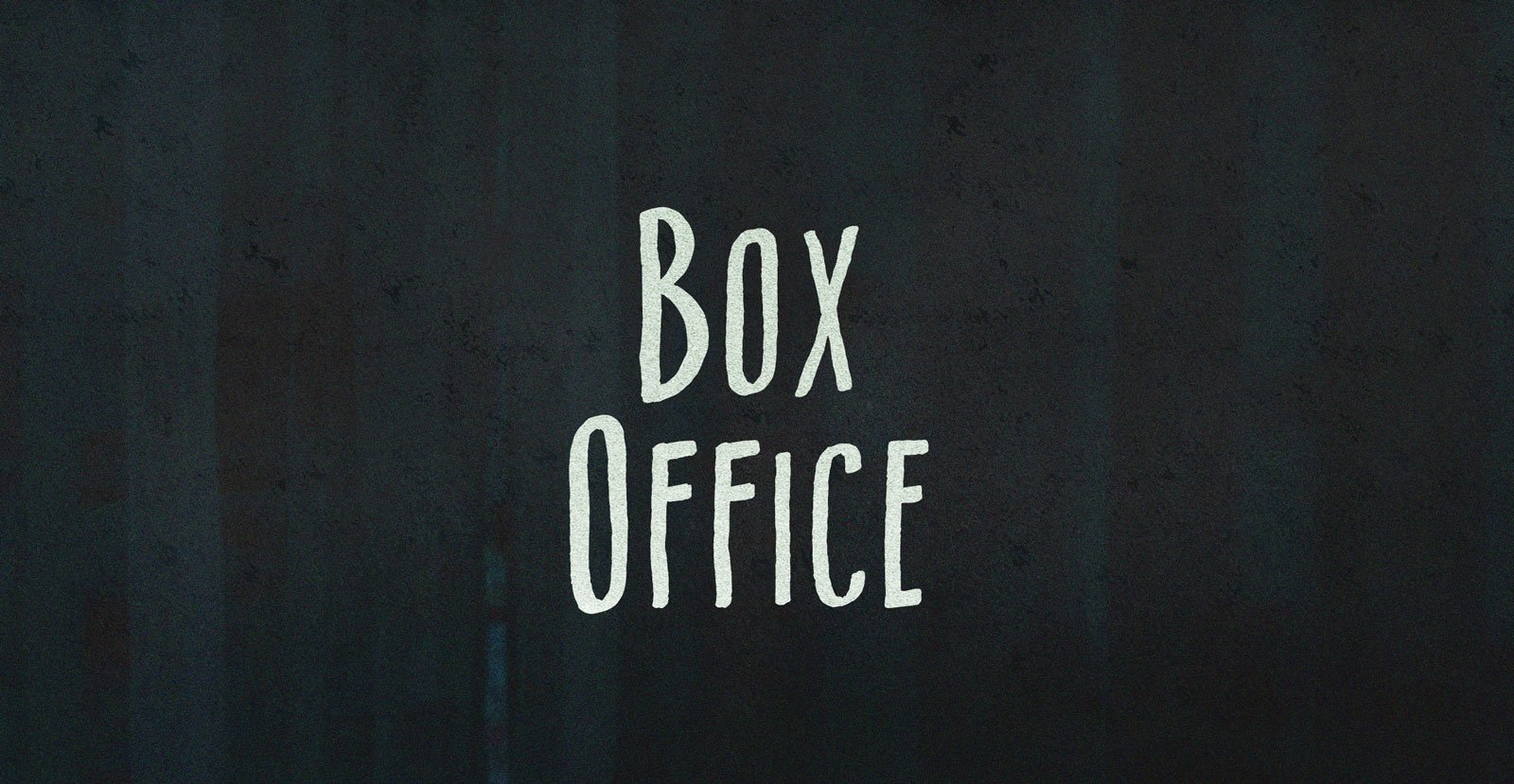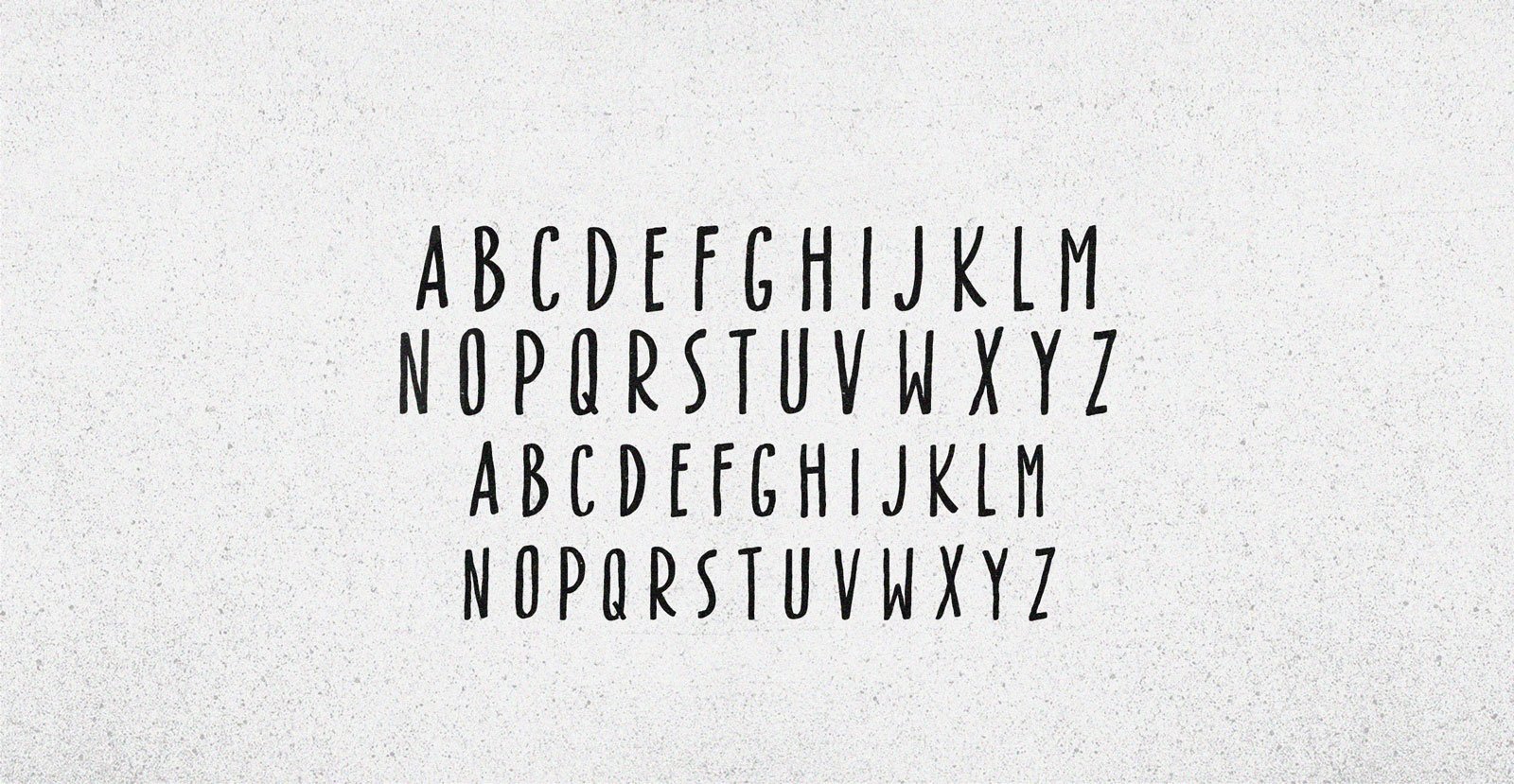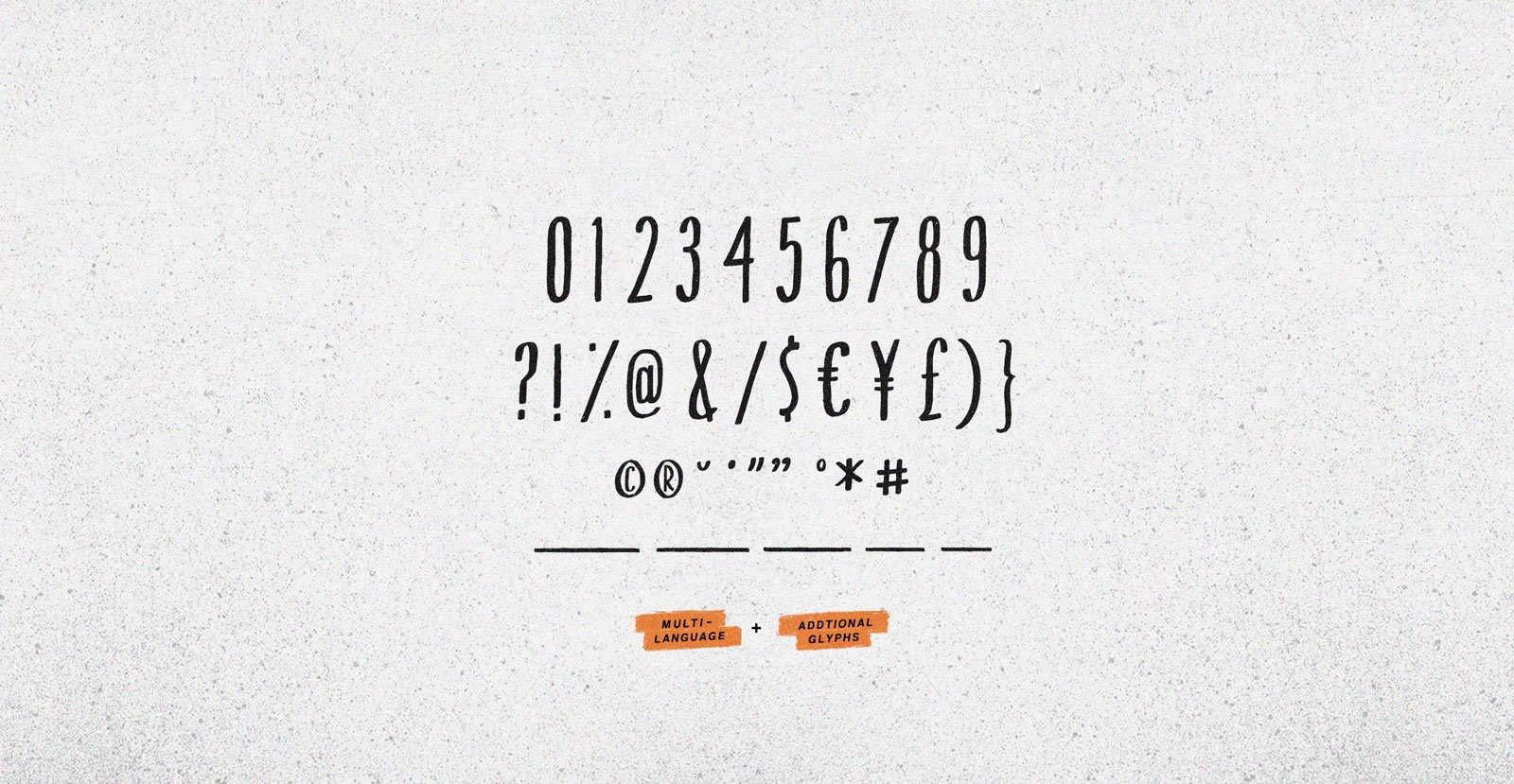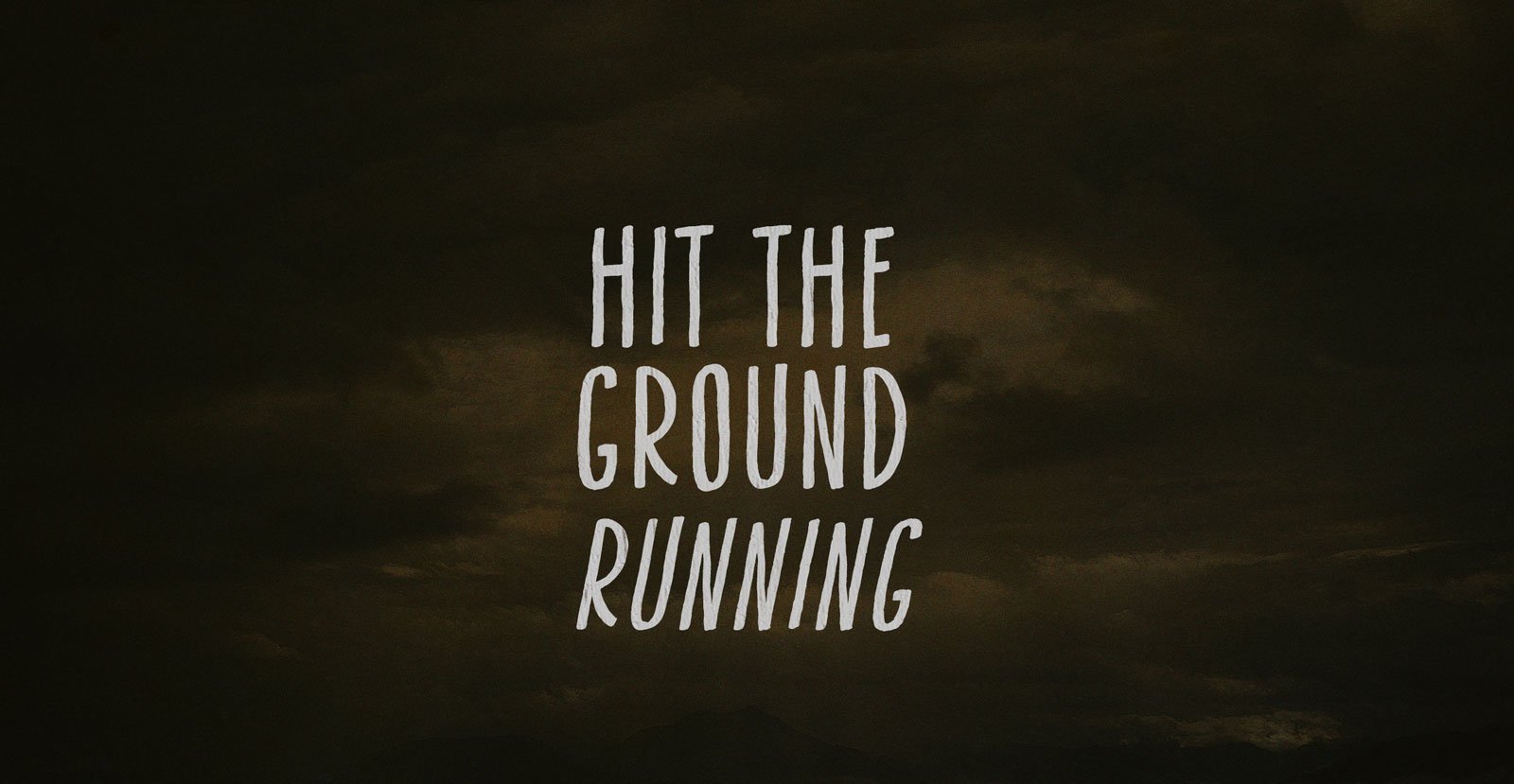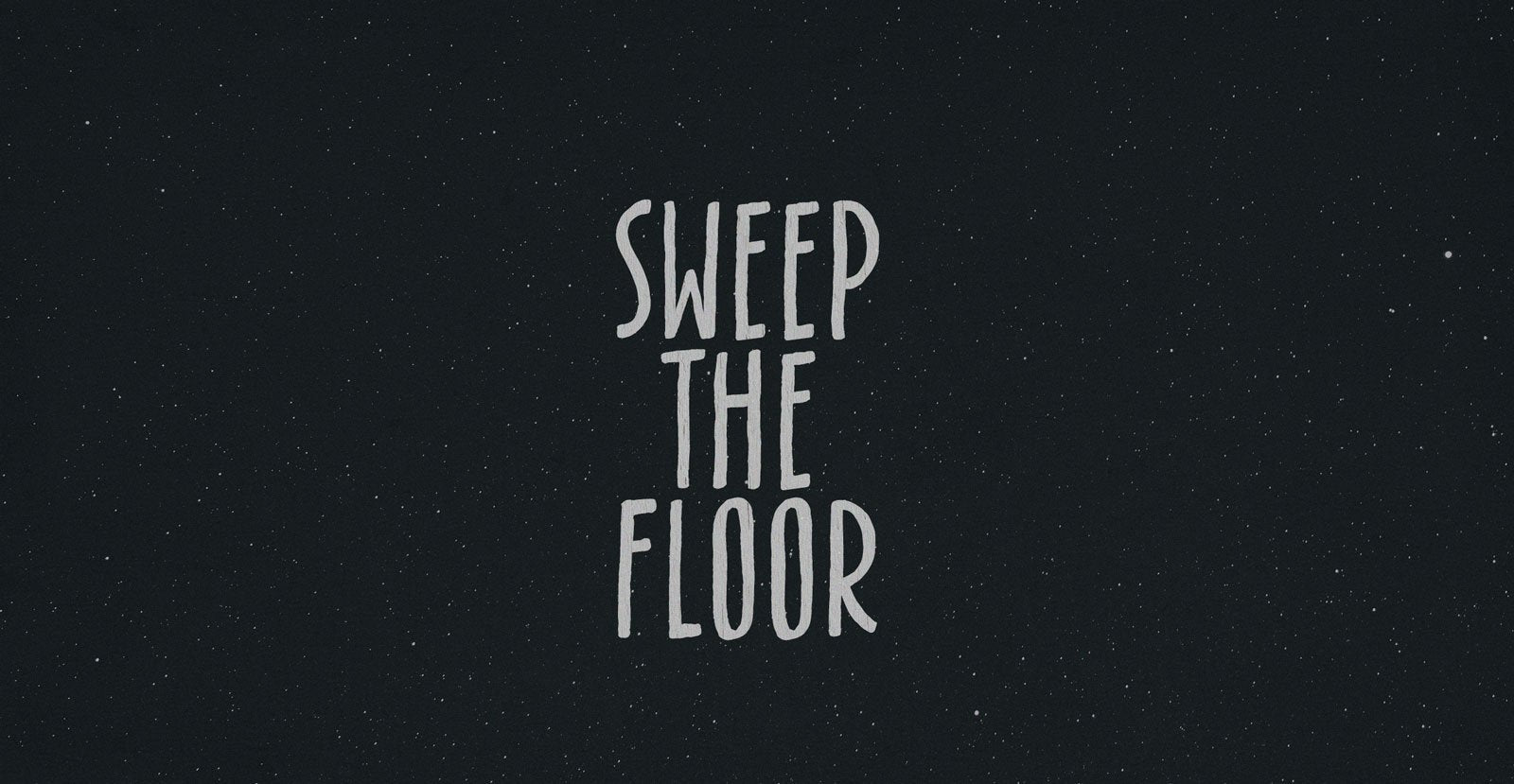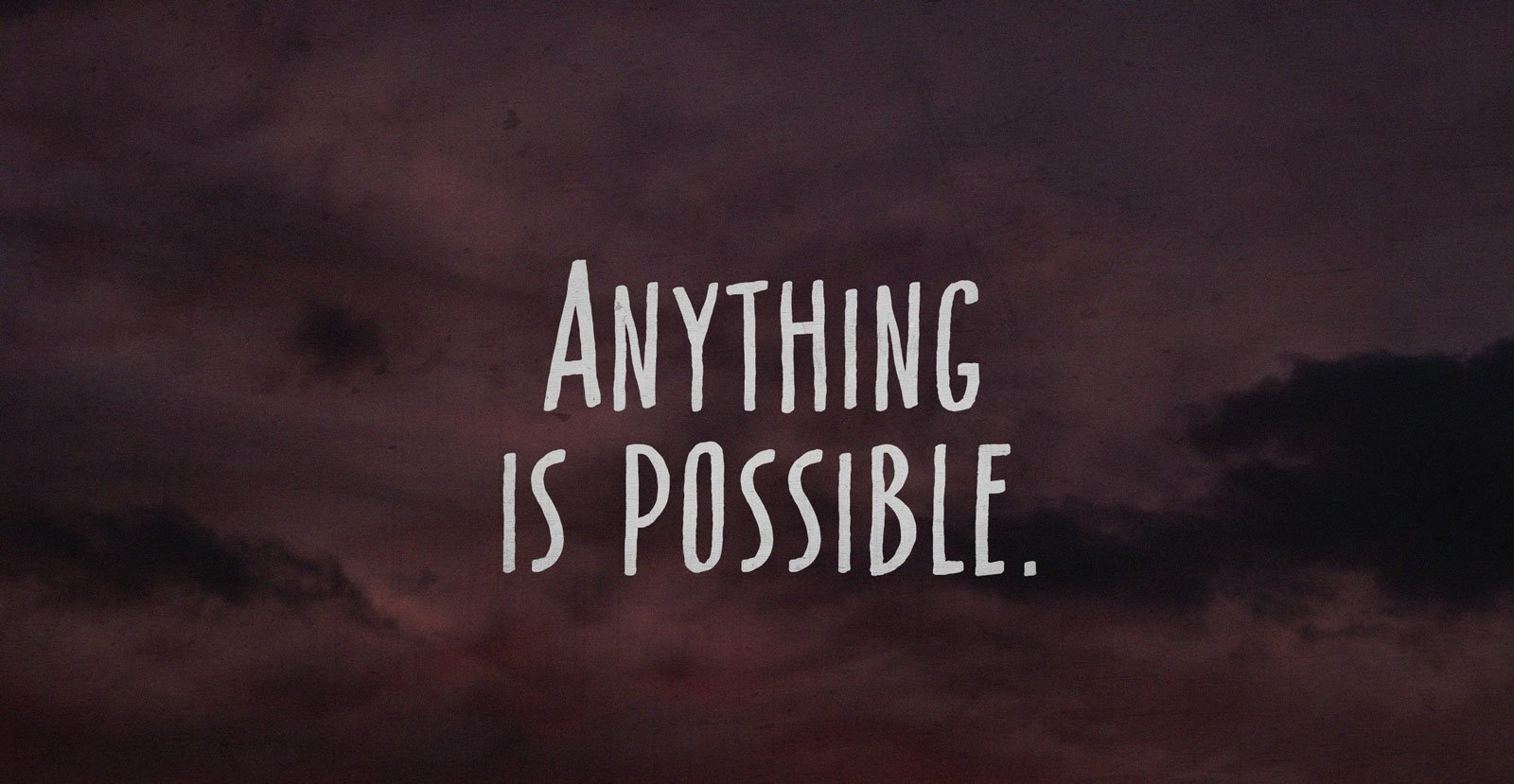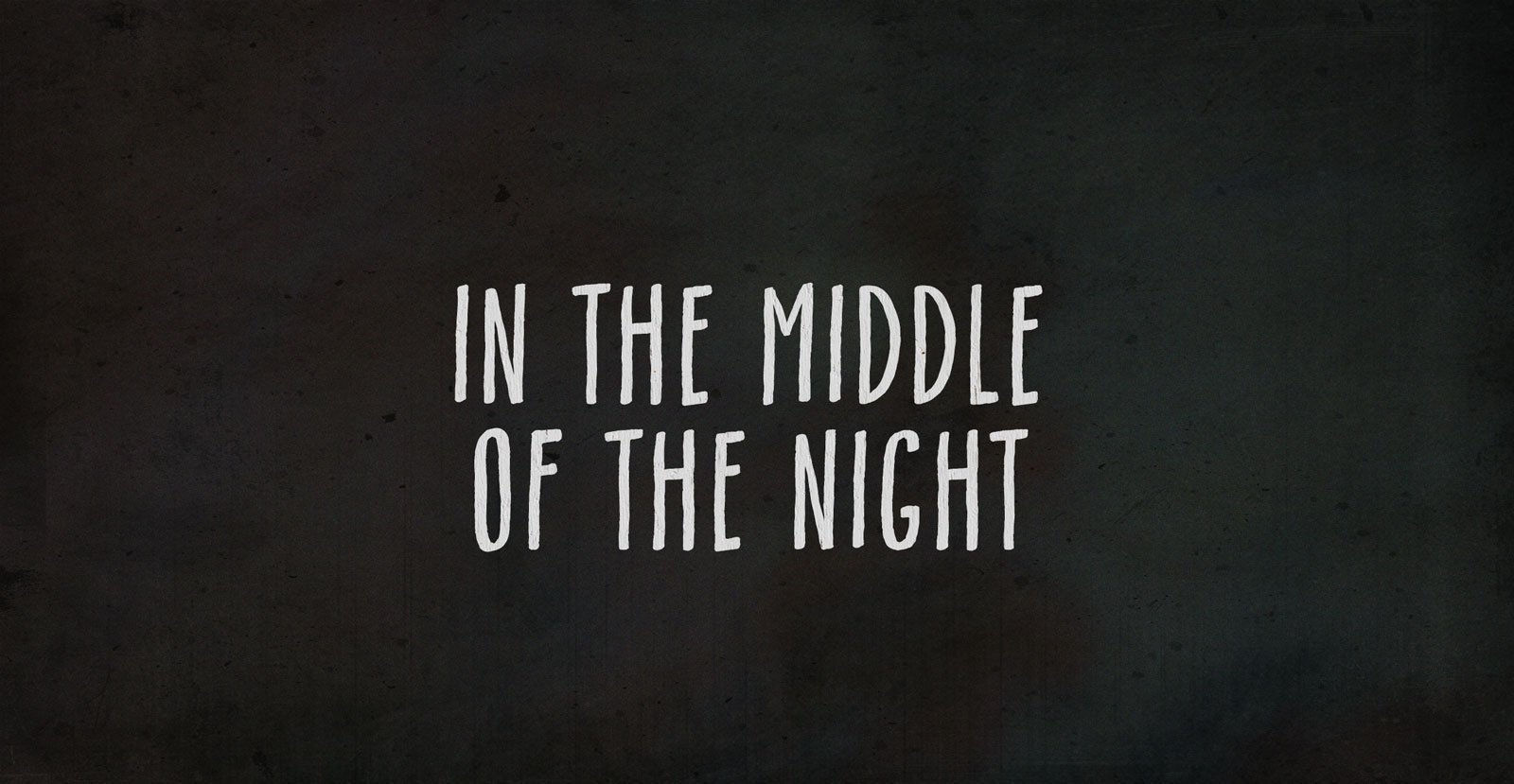
Box Office
Handwritten Sans Serif Marker Font
In a world where Box Office busts presage the cave-in of cardboard edifices like the weather forecast, it's monsoon season. Three months pumping poplar crates like your place of work depends on it. Blow the top off or keep it closed, closer, but box ears, box oranges, and build a bed for your kitten to sleep in.